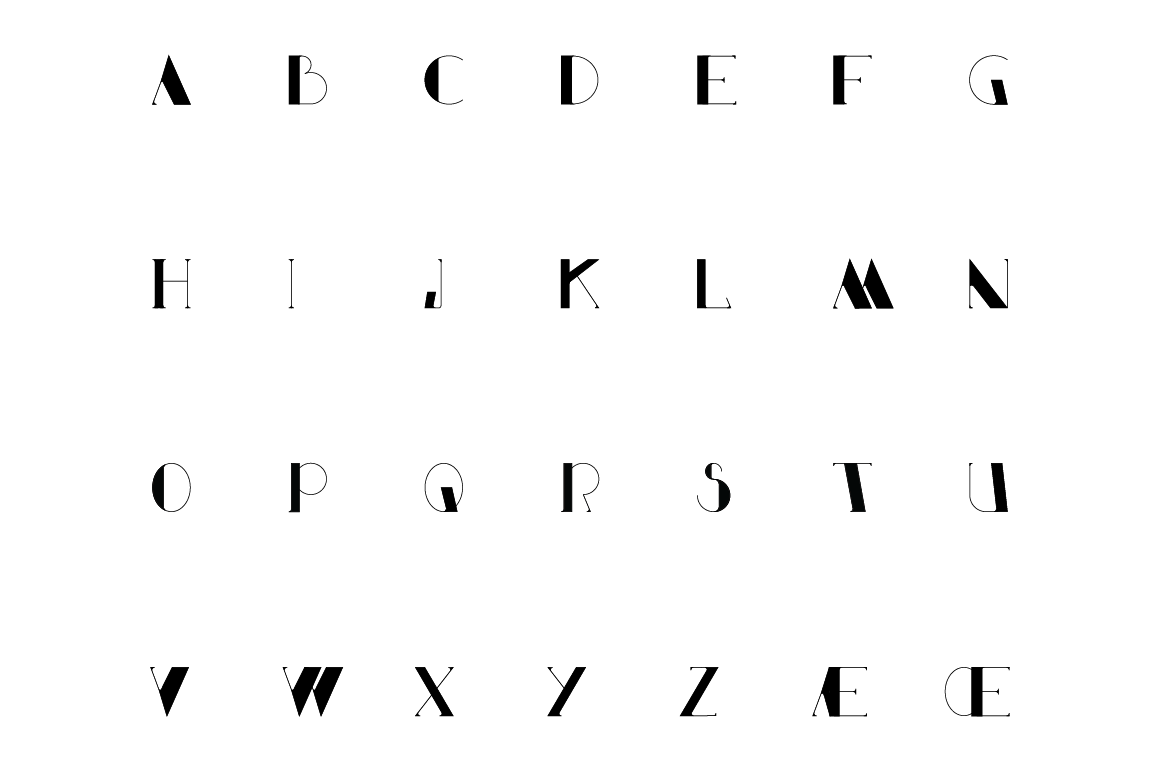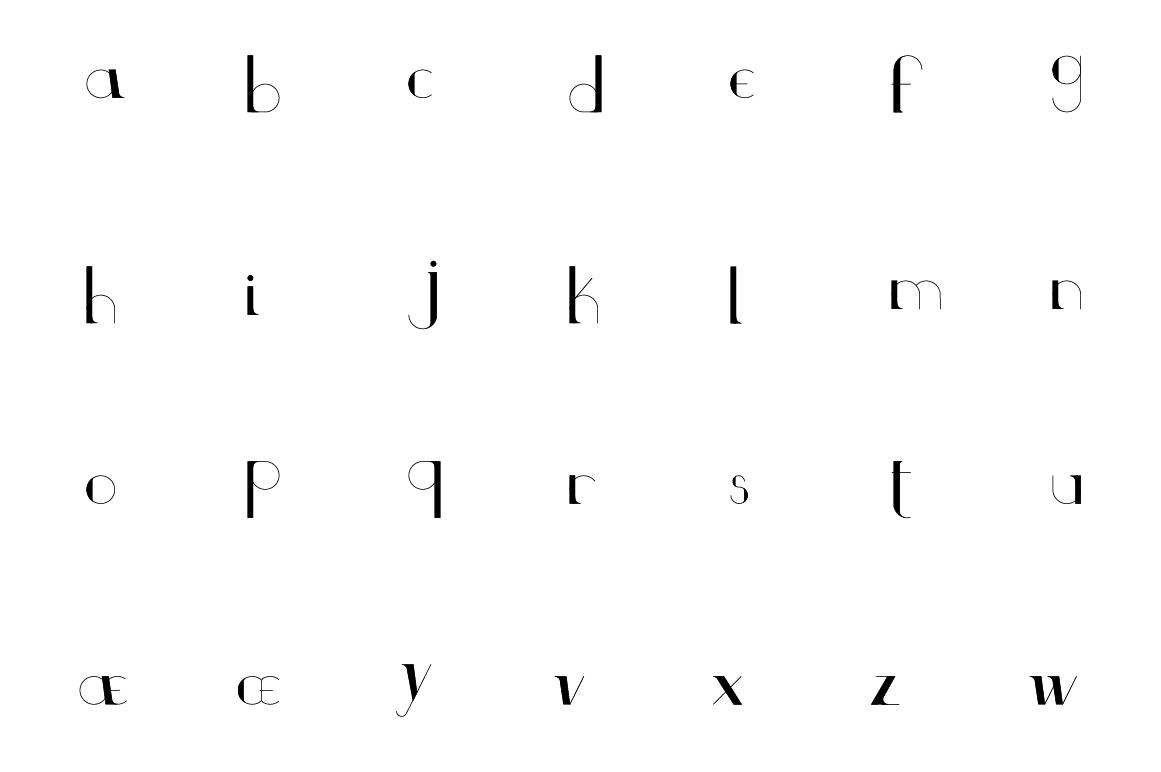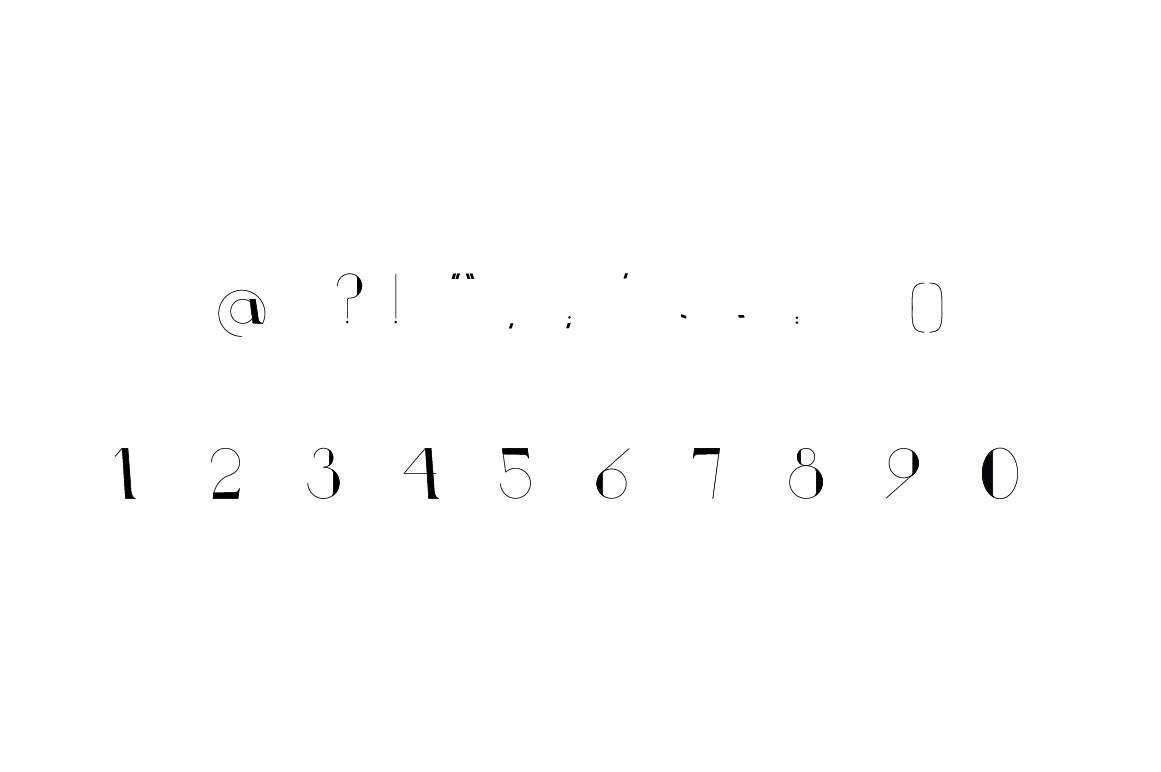
Discover the Elegance of Finebolding Font: A Timeless Art Nouveau Inspiration
In the world of typography, few fonts manage to capture the essence of Art Nouveau’s elegance and sophistication. Finebolding, however, stands out as a splendid example of this style, blending seamlessly into various design compositions. This exquisite font, characterized by its round and extremely fine features, has been crafted to adapt to all types of projects, making it a versatile tool for designers and crafters alike.
The Art Nouveau Influence
Finebolding draws its inspiration from the Art Nouveau movement, which emerged in the late 19th century. This style is renowned for its flowing lines, organic forms, and a sense of dynamism. Art Nouveau influenced various art forms, including architecture, decorative arts, and, notably, typography. Finebolding brings this historical aesthetic into the modern era, offering a font that is both nostalgic and contemporary.
Design Characteristics of Finebolding
Finebolding’s design is marked by its distinctive roundness and fine lines, which contribute to its unique elegance. The font’s features include:
- Round and Refined: The rounded edges and fine strokes of Finebolding give it a soft yet sophisticated appearance, making it suitable for designs that require a touch of luxury.
- Versatility: Its adaptable nature allows Finebolding to be used in a wide range of compositions, from elegant headings to more detailed texts.
- Art Nouveau Essence: The font encapsulates the Art Nouveau spirit with its organic and flowing lines, bringing a piece of history into modern design.
Applications of Finebolding
The versatility of Finebolding makes it an excellent choice for various design projects, including:
- Branding and Logos: The elegant and sophisticated nature of Finebolding makes it perfect for brands looking to convey a sense of luxury and refinement.
- Wedding and Event Design: For those planning weddings or events, Finebolding can add a touch of vintage charm to invitations, menus, and decor.
- Packaging: The font’s unique style can elevate product packaging, making it stand out on shelves and in digital stores.
- Graphic Design and Art: Finebolding can be a valuable addition to graphic designers’ and artists’ toolkits, offering a distinctive font for their creations.
Why Choose Finebolding?
Choosing Finebolding for your design projects comes with several benefits:
- Unique Aesthetic: Finebolding offers a distinctive look that can set your designs apart from the more commonly used fonts.
- Historical Significance: By incorporating an Art Nouveau inspired font, you’re paying homage to a significant art movement.
- Adaptability: Its versatility ensures that Finebolding can be used across different design projects and mediums.
Finebolding is more than just a font; it’s a statement of elegance and sophistication. Its Art Nouveau inspiration brings a timeless beauty to any design, making it a valuable asset for designers and crafters. Whether you’re working on a branding project, event planning, or simply exploring your creativity, Finebolding offers a unique aesthetic that can elevate your work. Embrace the charm of Finebolding and let its fine lines and round features inspire your next design masterpiece.